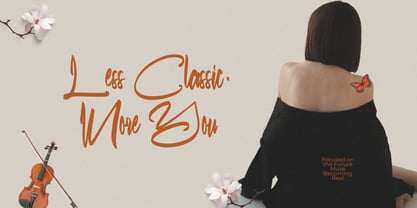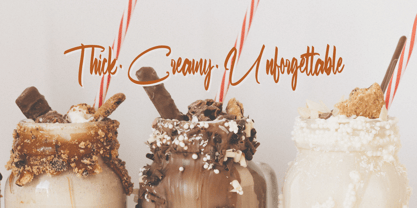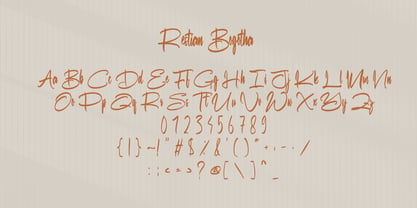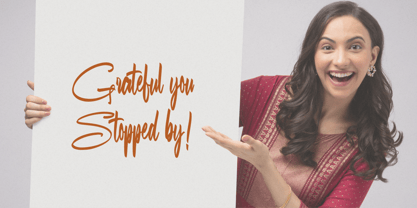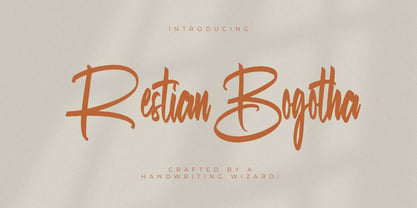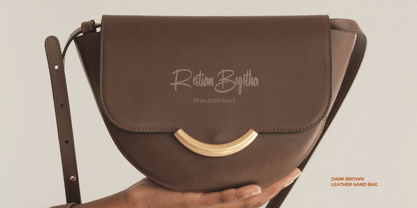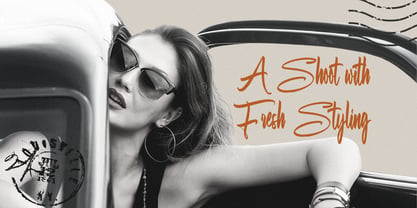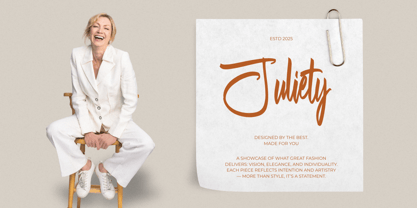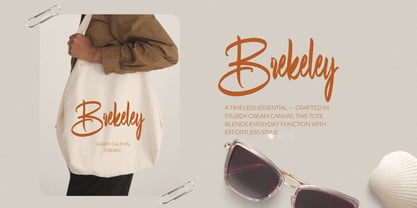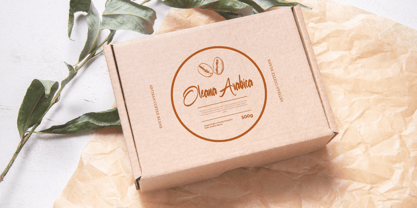
Restian Bogotha
by Gatype
The Restian Bogotha Font Family was designed by khaidir and published by Gatype. Restian Bogotha contains 1 styles. More about this family
Restian Bagotha – Elegant Script Typeface
Restian Bagotha is a luxurious script typeface with flowing curves, graceful swashes, and refined letterforms. Inspired by classic calligraphy with a modern twist, this font is designed to evoke sophistication and emotion — perfect for branding, wedding stationery, high-end packaging, and editorial design.
Each stroke is crafted with attention to detail, giving your designs a sense of movement, style, and personality. Restian Bagotha is ideal for logotypes, headlines, invitations, and anything that calls for a beautifully expressive touch.